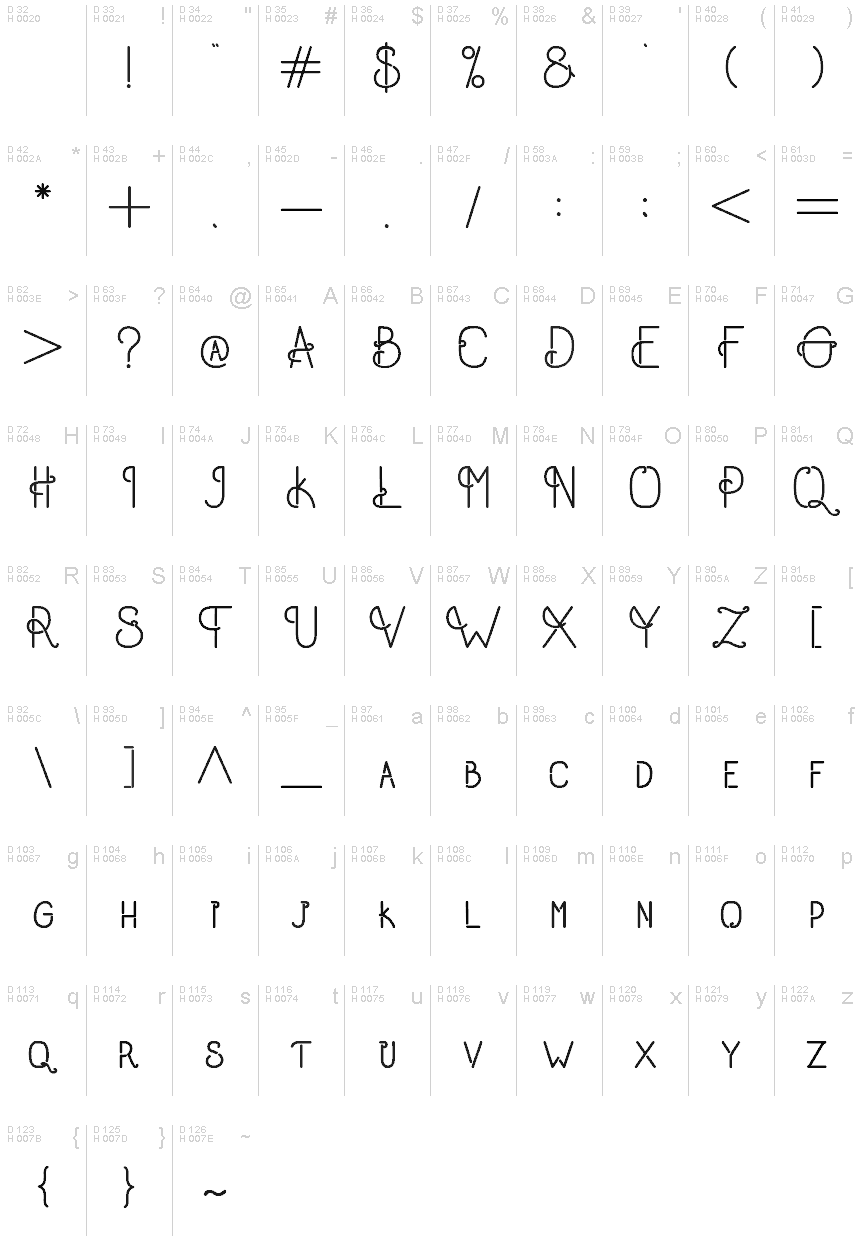
Old Alpha Regular
Old Alpha is a captivating display font that exudes a vintage allure. Designed by madeDeduk, this lightweight typeface boasts a delightful blend of classic and contemporary elements.
The distinctive letterforms, with their smooth, flowing curves and subtle serifs, evoke a sense of timeless elegance. The font's versatility shines through, making it a perfect choice for a range of design applications, from artisanal branding and editorial layouts to eye-catching headlines and impactful signage.
Its refined and sophisticated aesthetic lends itself beautifully to various creative disciplines, from print design to digital media, inviting designers to explore its endless possibilities.